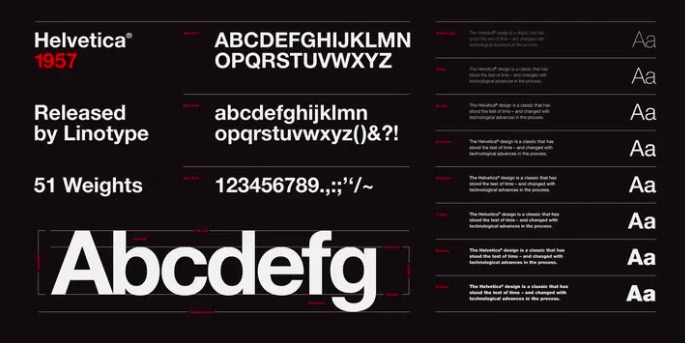
Helvetica is a great famous Sans Serif font family with many variants and different styles. It was designed first by Max Miedinger in 1957 and published by Linotype.
Helvetica Fonts
Designer Name: Linotype